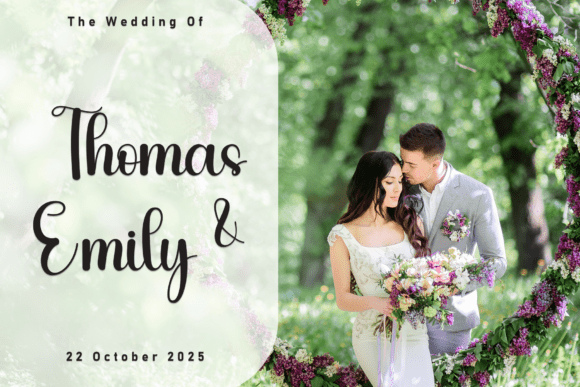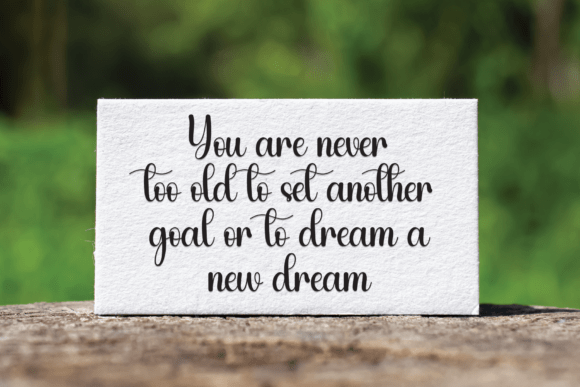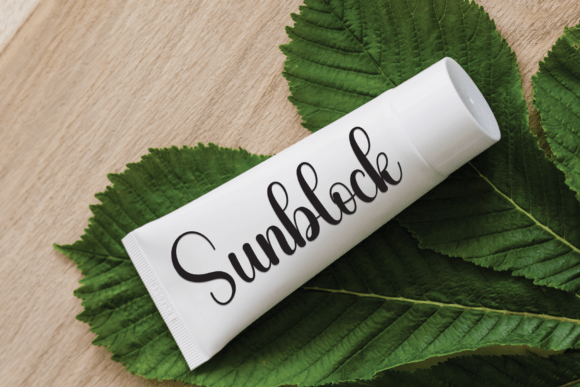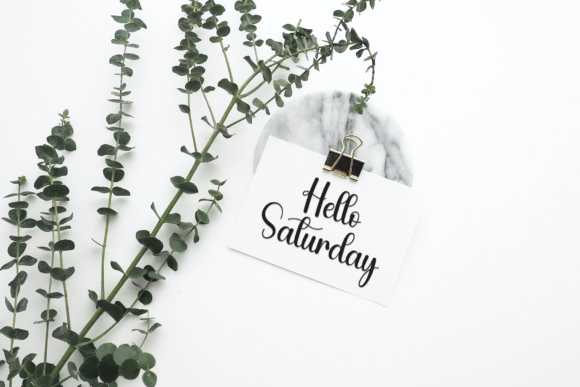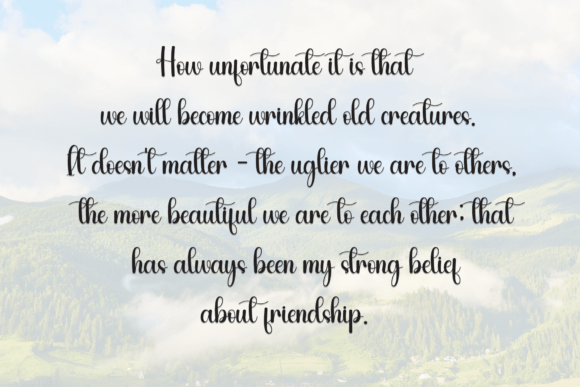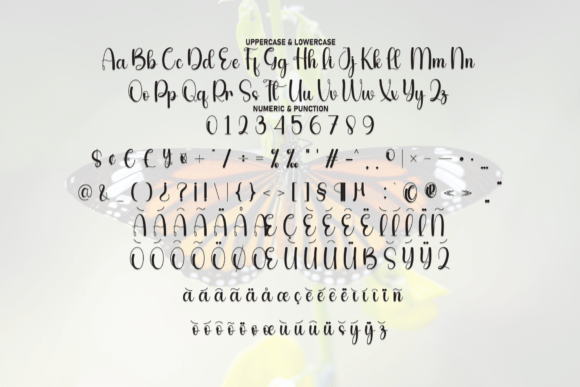
Introducing Butterfly Font: Elevate Your Designs with Artistic Flair and Contemporary Elegance
In the world of typography, few fonts manage to capture the perfect blend of artistic expression and modern sophistication. Butterfly Font is one such exceptional typeface that brings a refreshing breeze of creativity to the table. This stylish script font is designed to infuse your designs with a vibrant character, making it an ideal choice for a wide range of applications, from logos and invitations to packaging and social media graphics.
The Essence of Hand-Painted Calligraphy with a Modern Twist
Butterfly Font is inspired by the fluidity and dynamism of hand-painted calligraphy. Each letterform is carefully crafted to exude a sense of movement and elegance, reminiscent of the delicate strokes of a brush. The font features fluid brush strokes, dynamic curves, and expressive letterforms that work harmoniously to create a visually stunning effect. This unique blend of traditional calligraphy and modern design elements makes Butterfly Font a standout in the world of typography.
Key Features of Butterfly Font
- Fluid Brush Strokes: The font’s fluid brush strokes give it a natural, hand-painted look that adds warmth and character to any design.
- Dynamic Curves: The dynamic curves in Butterfly Font create a sense of movement and flow, making it perfect for designs that require a touch of elegance and sophistication.
- Expressive Letterforms: Each letterform in the font is designed to be expressive and unique, ensuring that your designs stand out from the crowd.
- Modern Twist: The font’s modern twist makes it versatile and suitable for a wide range of design applications, from traditional to contemporary.
Ideal Applications for Butterfly Font
Butterfly Font is an incredibly versatile typeface that can be used in various design projects. Here are some ideal applications for this beautiful font:
- Logos: Create a lasting impression with a logo that exudes elegance and sophistication. Butterfly Font is perfect for branding and identity designs that require a touch of artistic flair.
- Invitations: Add a touch of luxury and refinement to your invitations, whether it’s for a wedding, birthday party, or corporate event.
- Packaging: Elevate your product packaging with a font that conveys quality, style, and sophistication.
- Social Media Graphics: Create engaging social media graphics that stand out from the crowd. Butterfly Font is perfect for designing eye-catching posts, banners, and ads.
Why Choose Butterfly Font?
With so many fonts available, why choose Butterfly Font? Here are a few compelling reasons:
- Visual Impact: The font’s unique blend of fluid brush strokes, dynamic curves, and expressive letterforms creates a visually stunning effect that grabs attention.
- Versatility: Butterfly Font is incredibly versatile and can be used in various design applications, from logos and invitations to packaging and social media graphics.
- Creative and Sophisticated: The font adds a creative and sophisticated touch to any design, making it perfect for designers and crafters who want to elevate their work.
Butterfly Font is a stylish script font that offers a perfect blend of artistic flair and contemporary elegance. With its fluid brush strokes, dynamic curves, and expressive letterforms, it’s an ideal choice for designers and crafters who want to add a touch of sophistication and creativity to their work. Whether you’re designing logos, invitations, packaging, or social media graphics, Butterfly Font is sure to deliver both visual impact and versatility.